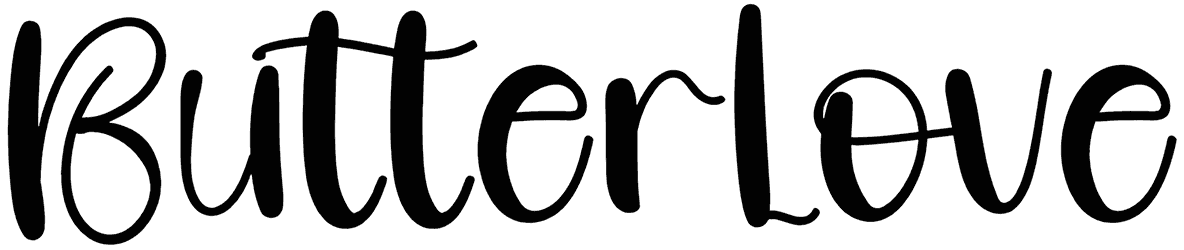
Butterlove Font
A good font must be cohesive with the content of your artwork, and in this regard, a playful love font such as Butterlove can be a reliable choice.
This masterpiece comes with rounded and elongated characters, so it looks insanely perfect on a vast range of graphic projects like storybook covers, logos, stickers, illustrations, or animation posters. In addition, it can provoke a vibe of momentum, jauntiness, or approachability in the audience’s minds and convince them to follow your work.